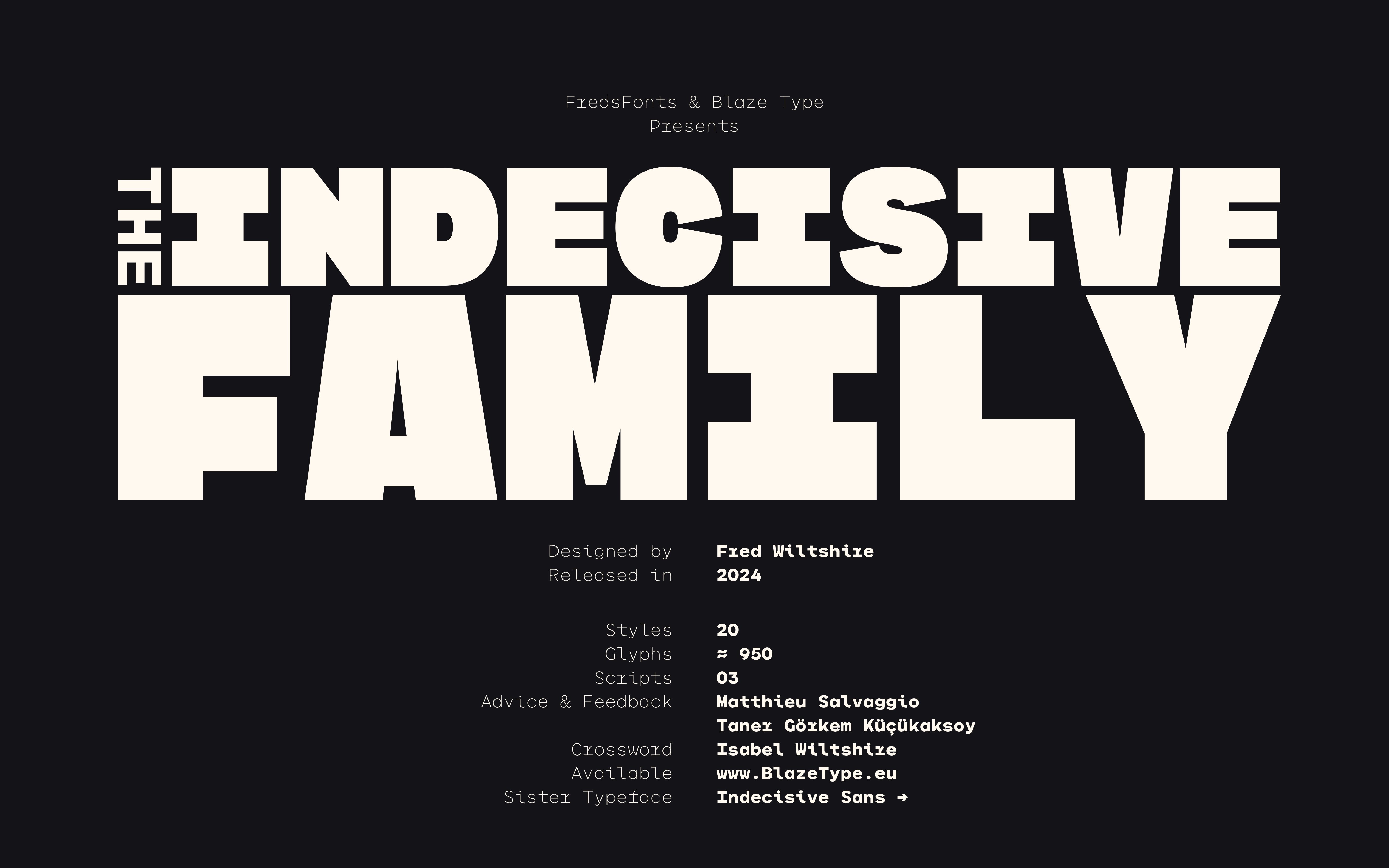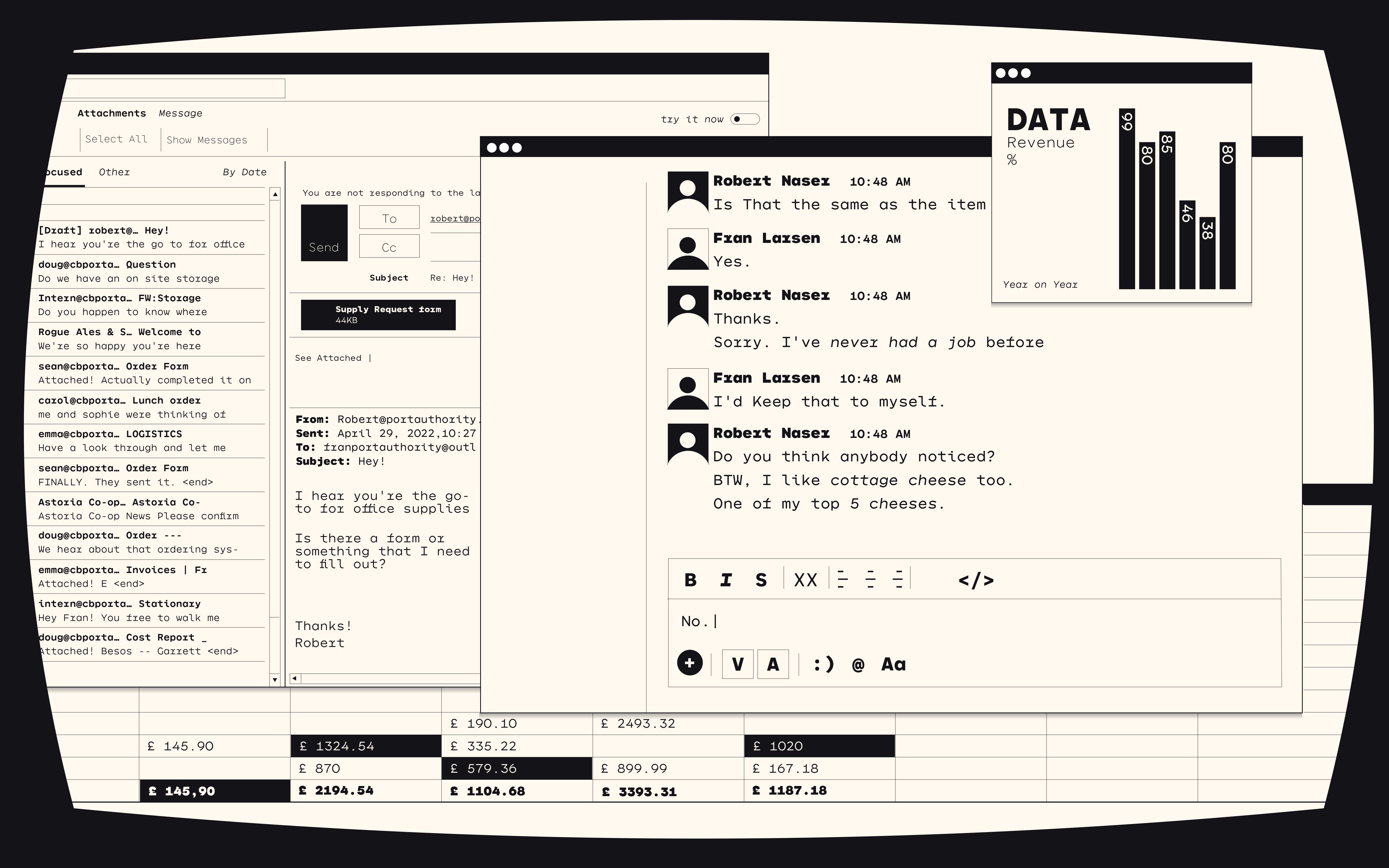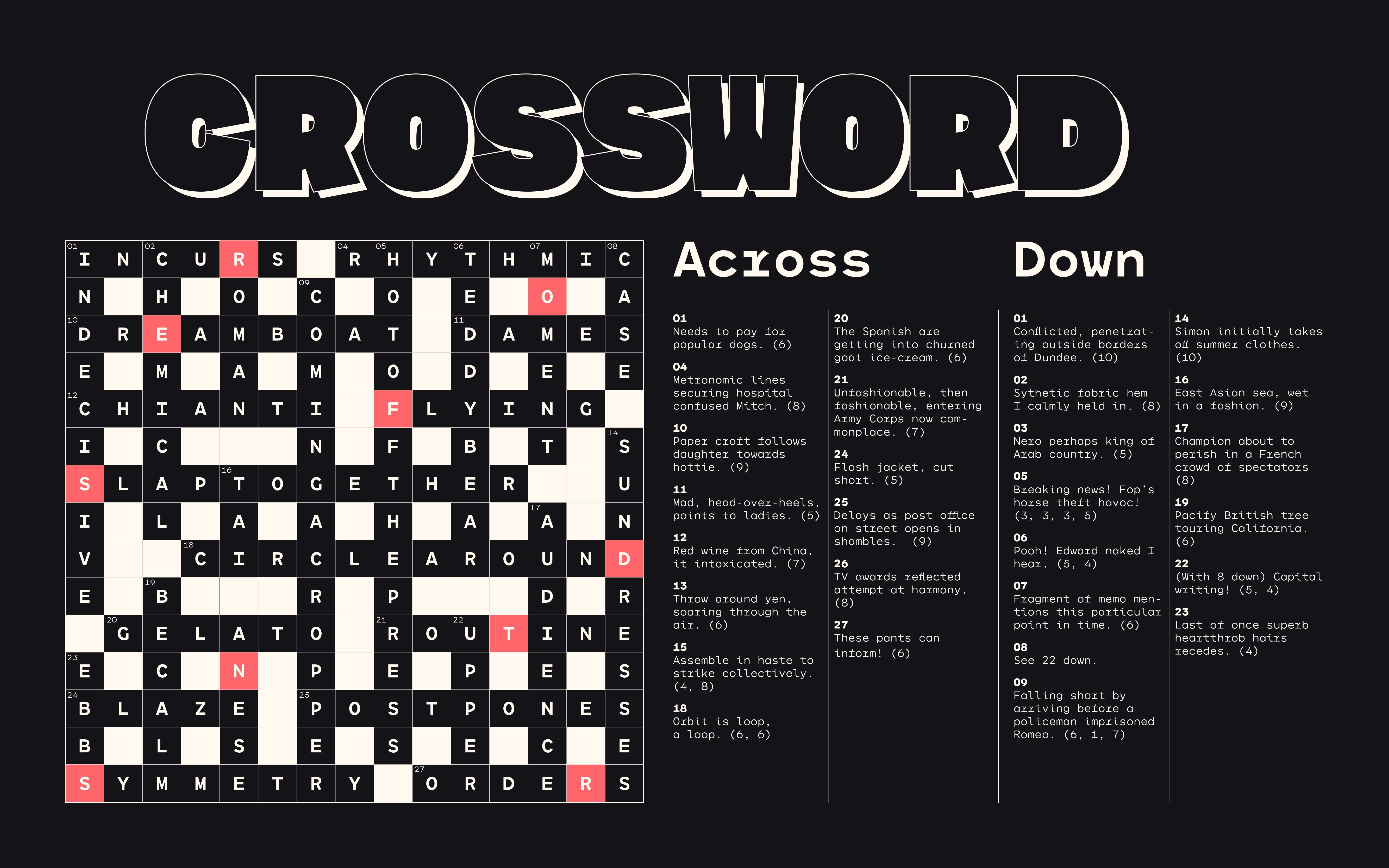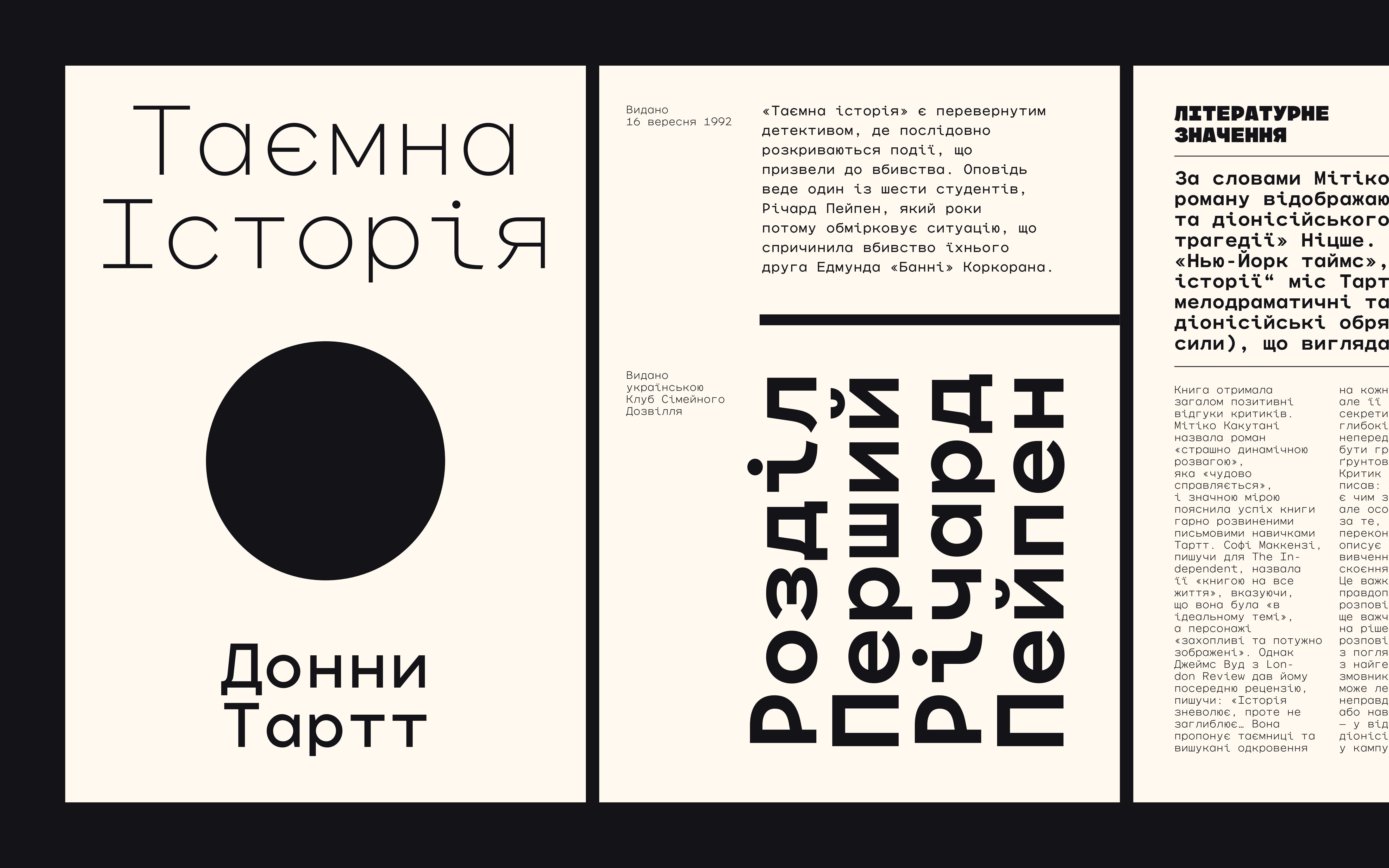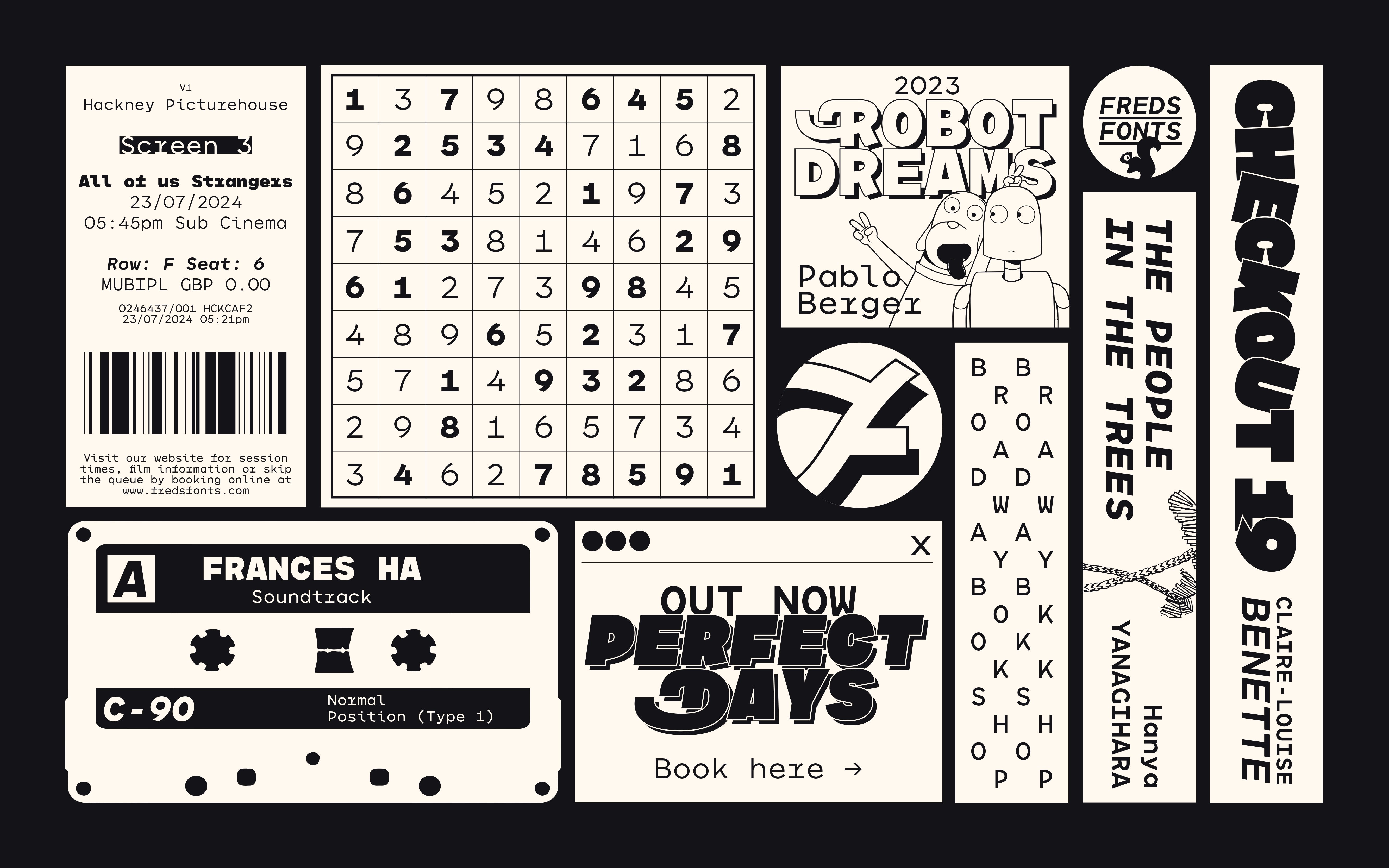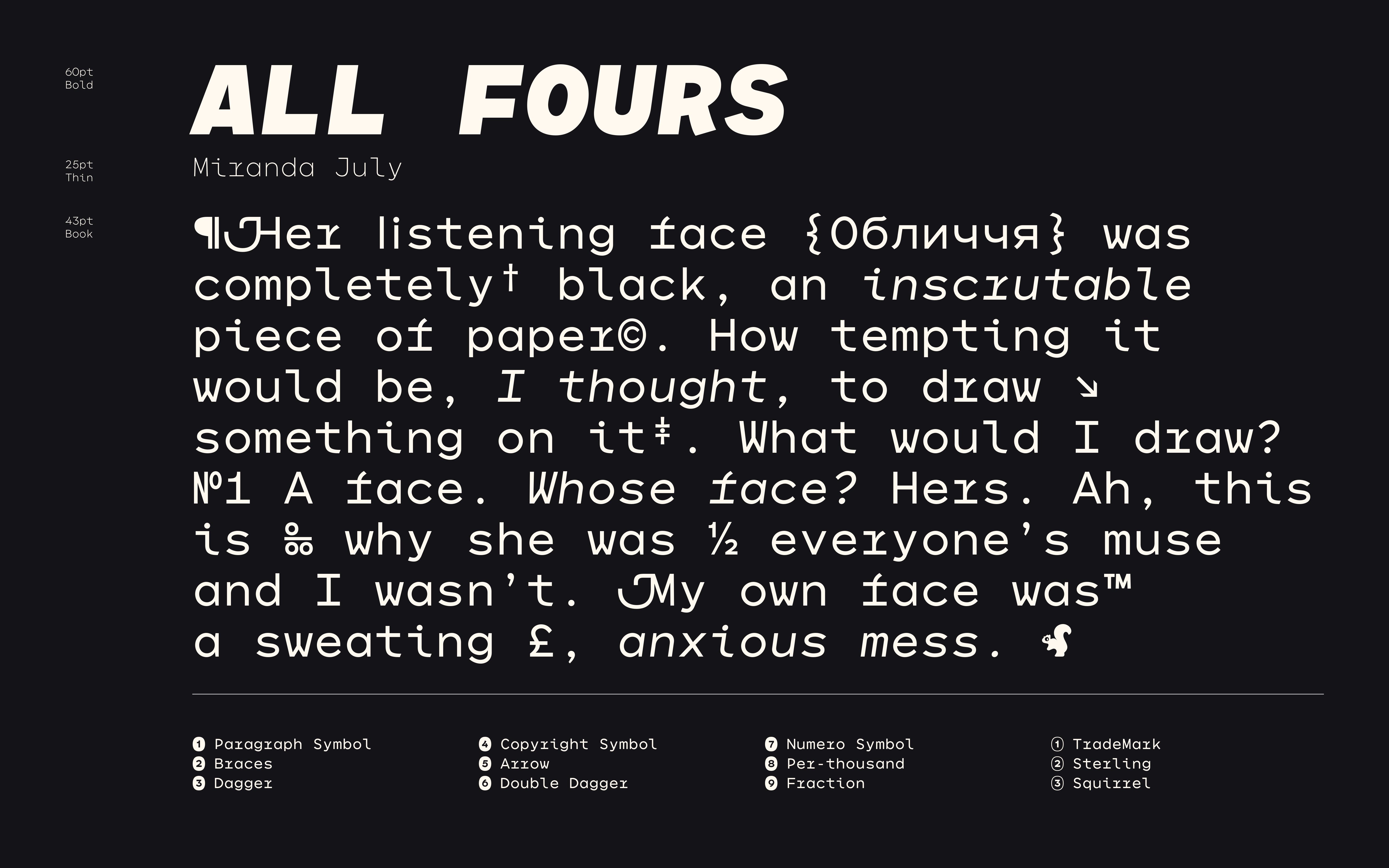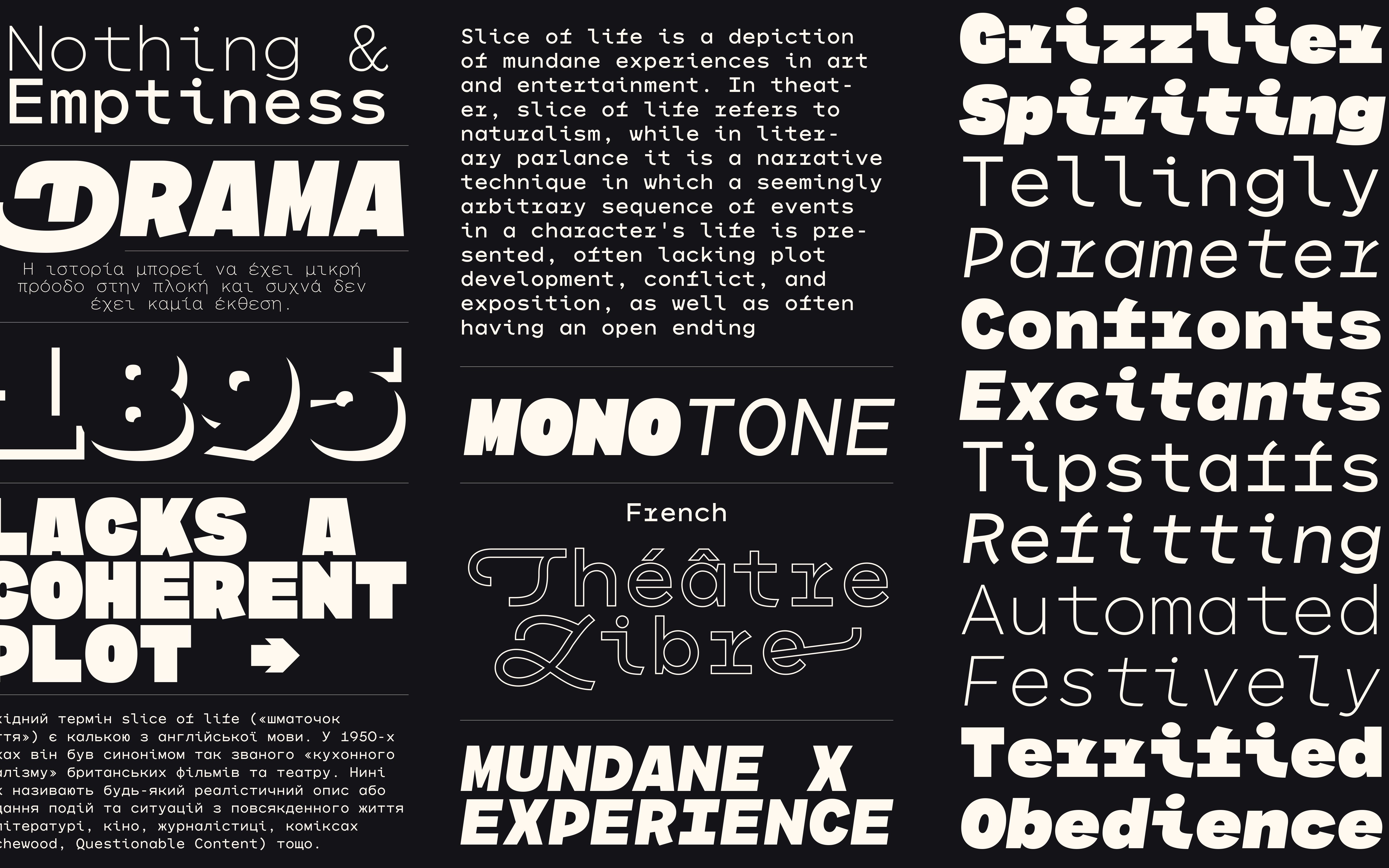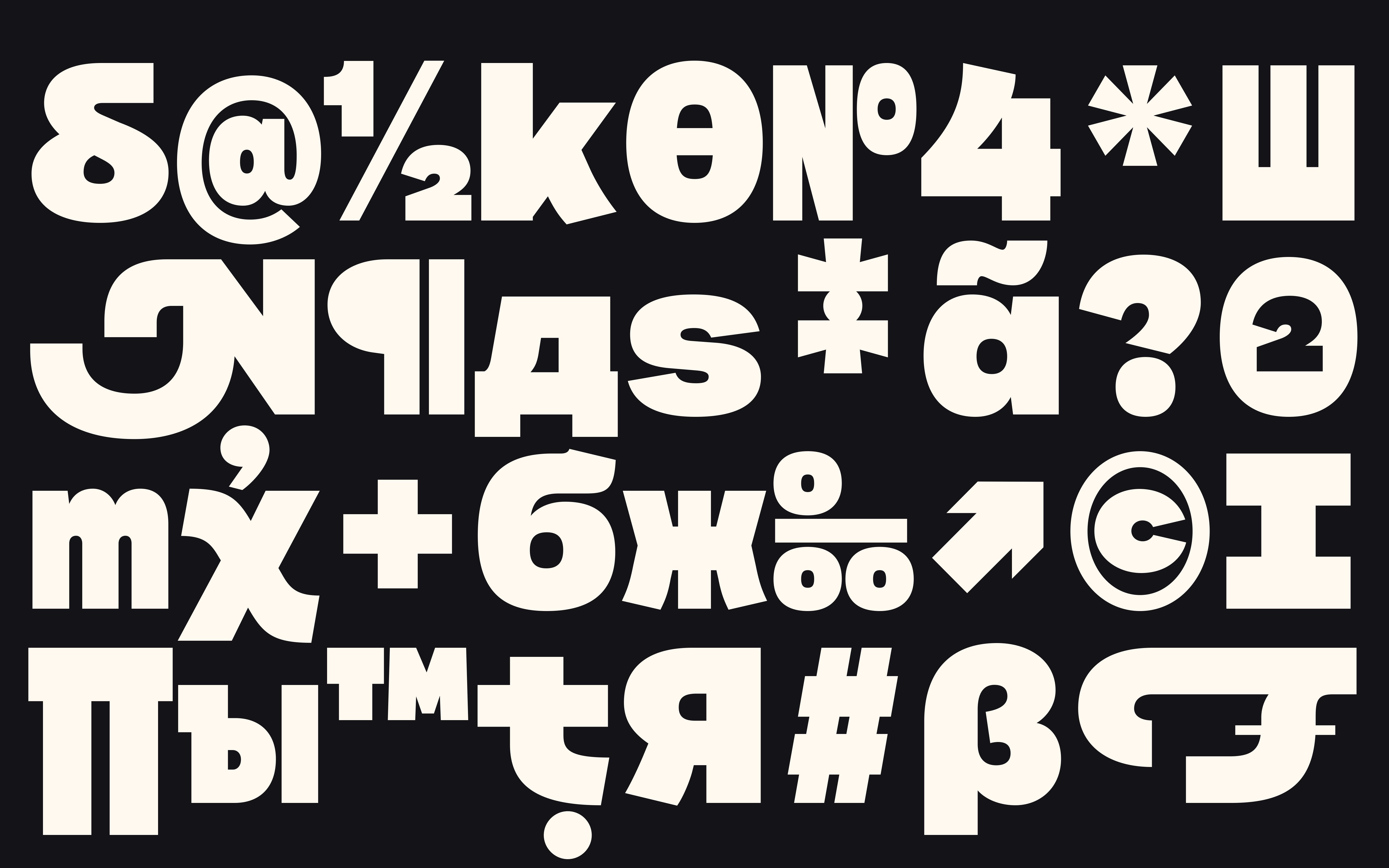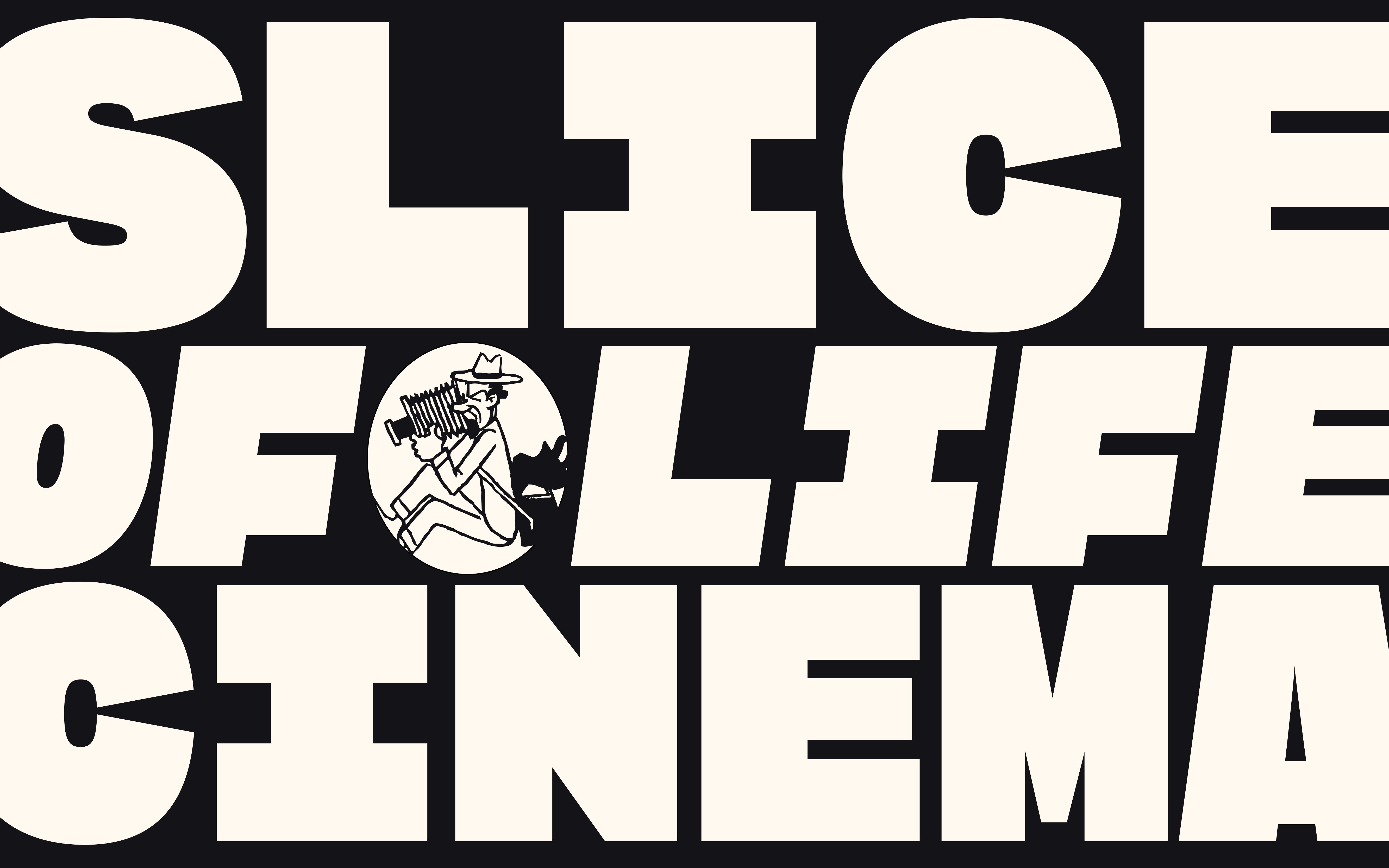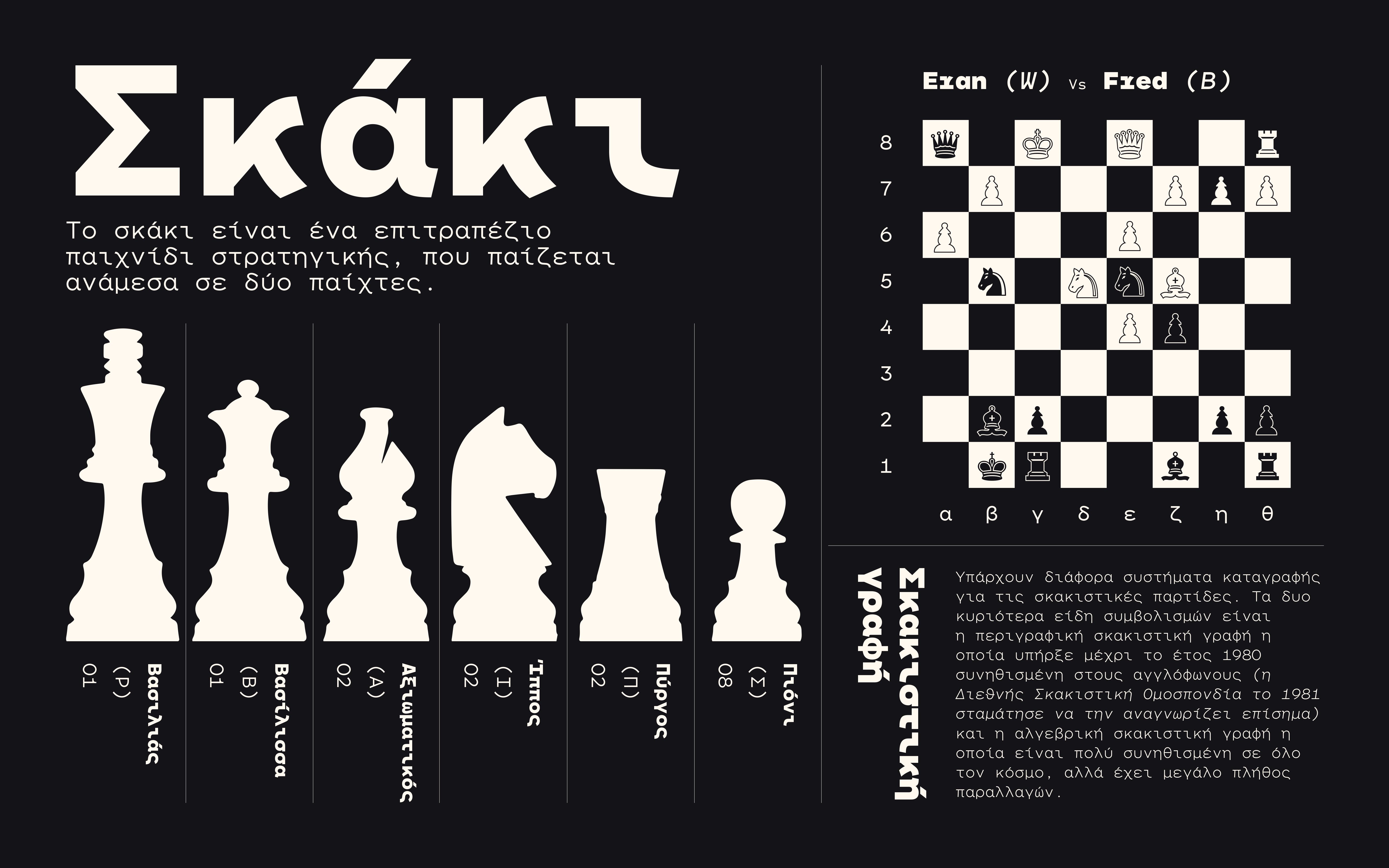
20 styles • Variable font
Indecisive Mono
How to create an original Geometric Mono? Indecisive Mono takes on a more playful and approach than most geometric Monos. Indecisive Mono isn’t based off of one source of inspiration, but merges elements from various Sans Serifs, such as Bernhard Gothic, Nobel Antieke and Spartan. Equally, Indecisive Mono comes with a set of alternate, swash characters derived from Old-Style italic Serifs such as Granjon. This merger has resulted in a joyful and distinct Geometric Mono with plenty of character, perfect for any setting. It comes in 20 styles, from Thin to Heavy, with slanted counterparts providing the user with plenty of versatility for any design.
Indecisive includes Latin extended, Greek and Cyrillic across all styles and alternates, Indecisive will have something for everyone. Its Heavier weights embrace Indecisive’s playful nature and allow for strokes to merge. Its lighter weights are more reserved and well equipped to tackle larger paragraphs of text. Indecisive has some stand out characters such as the /r and /w and swooping out-strokes on the /K and /R, allowing it to stand out without being overbearing.
It stands separate from its sister typeface, Indecisive Sans, firstly by the obvious, it’s a monospaced typeface. But other differences can be found in the heavier weight, with squarer, bulkier features, and the swash characters, which take on a different design to accommodate for the
From newspapers, magazines and posters to websites, animations and packaging, Indecisive Mono radiates a sense of fun, warmth and charisma that will enrich any design.
Fred Wiltshire
Latin European, Cyrillic and Greek